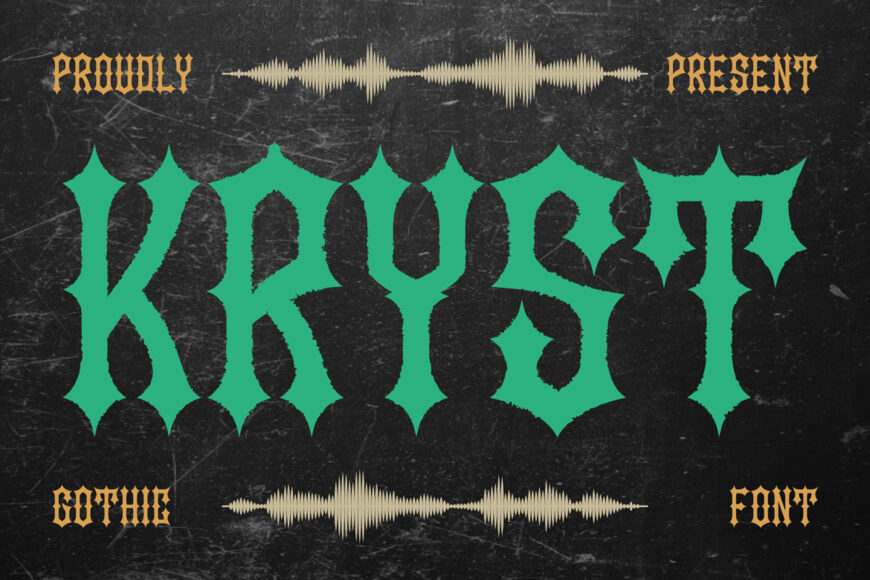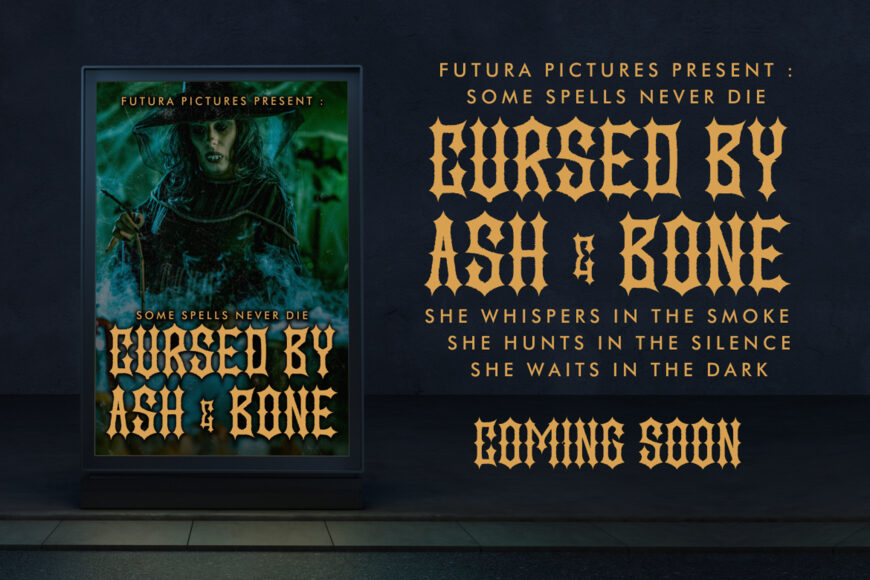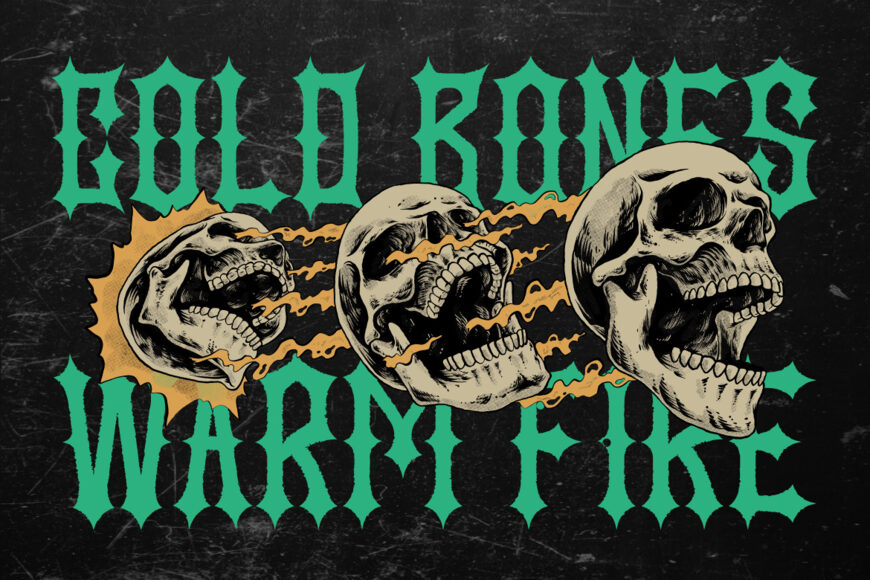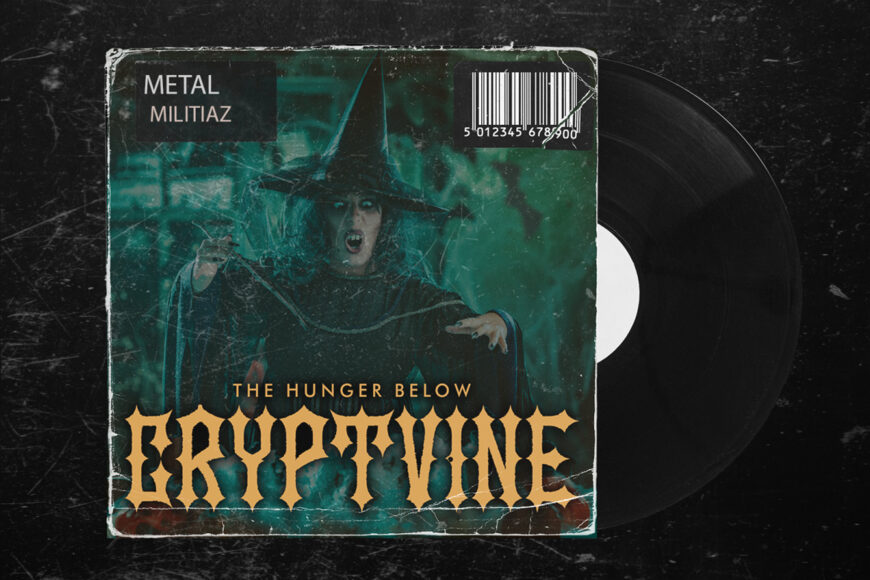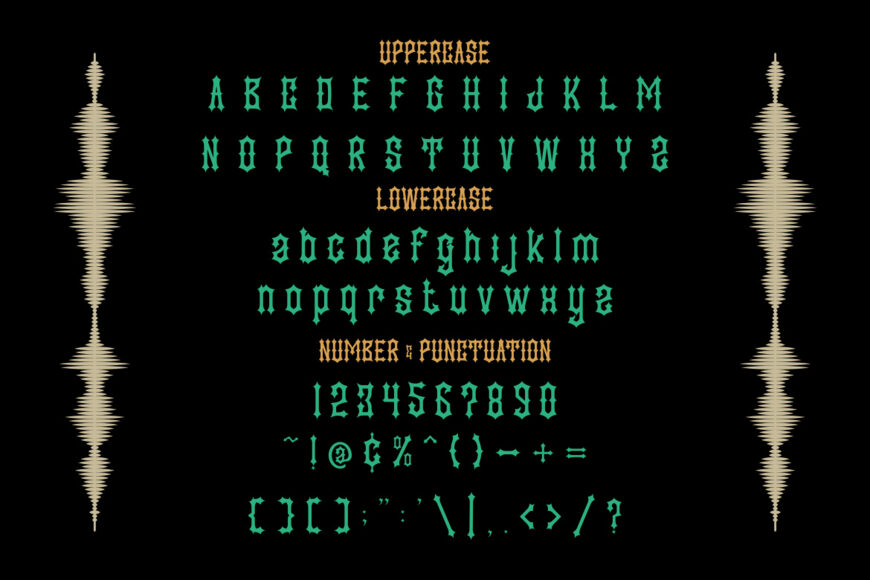
Kryst “Gothic Font” is shaped with sharp, dramatic letterforms and strong vertical emphasis. The characters appear tall and narrow, creating an aggressive and commanding rhythm. Stroke contrast feels firm, with pointed terminals that enhance tension and impact.
The form language reflects classic gothic typography with a modern edge. Kryst Gothic Font delivers a dark visual identity that feels raw and uncompromising. It performs best at display sizes where detail and character matter most. The structure supports powerful wordmarks and short phrases.